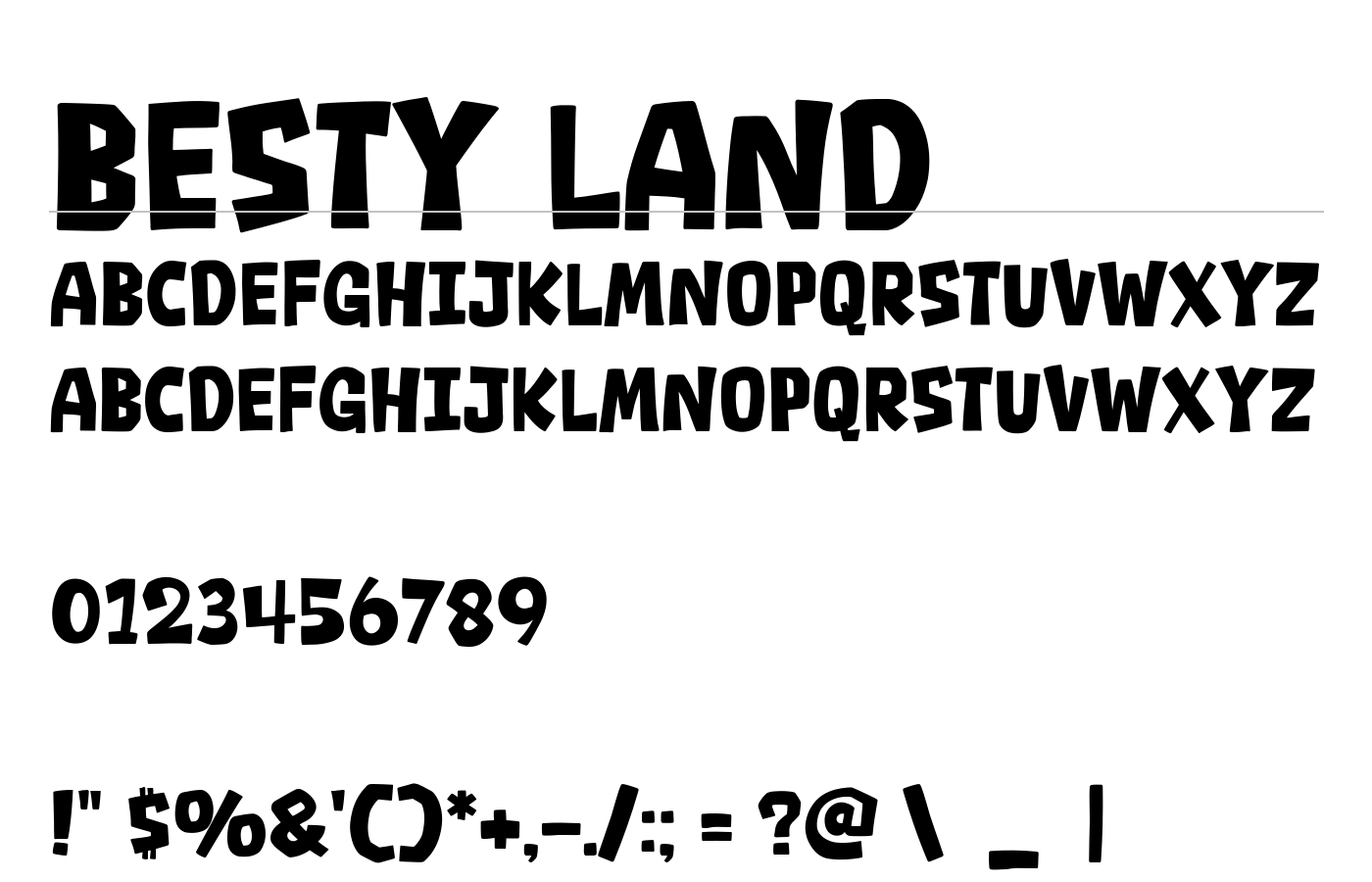
Besty Land is a playful and bold sans serif font characterized by its chunky, irregular letterforms that convey a hand-drawn, whimsical feel. Its uneven shapes and lively personality make it perfect for fun, informal designs such as children's books, posters, and casual branding where a friendly and engaging tone is desired. This font’s strong presence and quirky style make it especially effective in headlines and display use, adding charm and approachability to any creative project.
Besty Land Font
About Besty Land Font